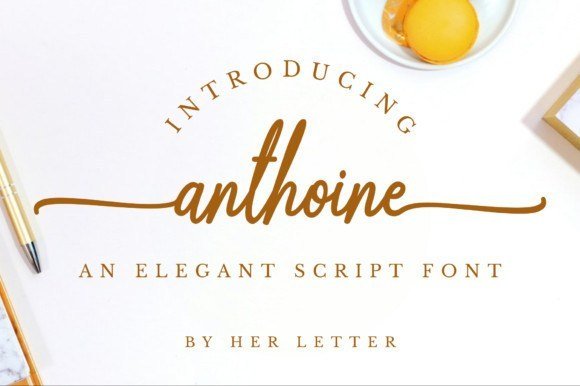
Anthoine Handwritten Font
Anthoine is an elegant script font. It includes beautiful alternates and ligatures that will make your design look elegant, sophisticated and natural.
It perfect for logos, product packaging, wedding invitations, branding, headlines, signage, labels, signatures, book covers, posters, quotes, and much more.